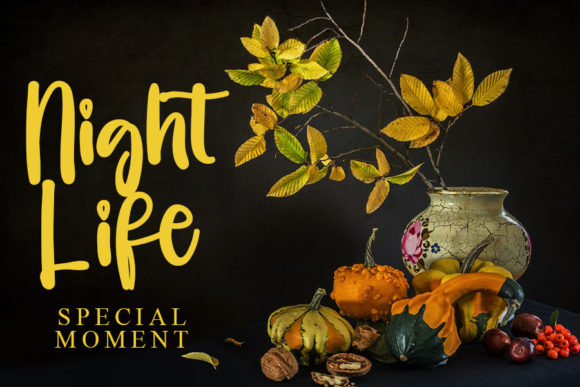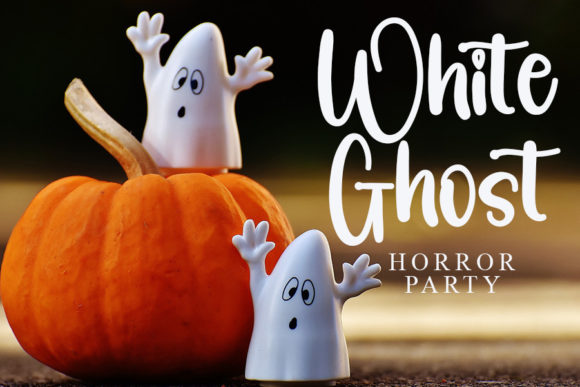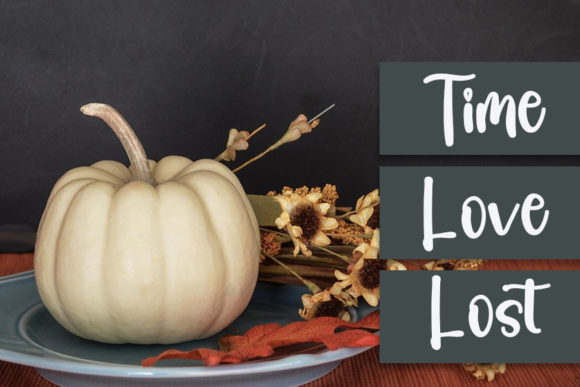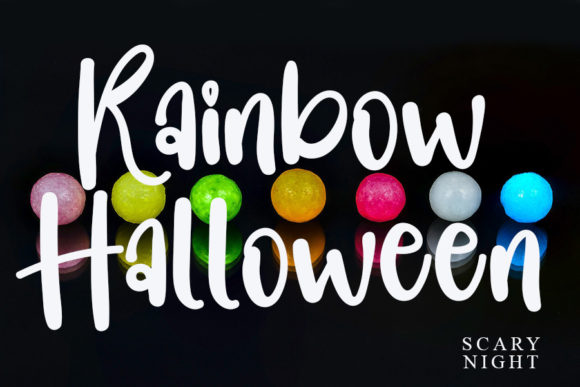
Introducing the Spooktacular Halloween Pumpkin Font
Are you ready to add a touch of horror and whimsy to your designs? Look no further than the Halloween Pumpkin Font, a charming and playful handwritten font that’s perfect for the spookiest time of the year. This delightful font features characters that seem to dance along the baseline, adding a sense of movement and energy to any project.
What Makes Halloween Pumpkin Font So Special?
The Halloween Pumpkin Font is a horror handwritten font that’s designed to evoke the spirit of Halloween. Its unique and quirky characters are sure to make your designs stand out from the crowd. Whether you’re a designer, crafter, or simply a fan of the spooky season, this font is sure to delight.
One of the key features of the Halloween Pumpkin Font is its charming and playful characters. Each letter is carefully crafted to resemble handwriting, with a sense of imperfection and personality that’s hard to find in digital fonts. The characters seem to dance along the baseline, adding a sense of movement and energy to any project.
Uses for the Halloween Pumpkin Font
The Halloween Pumpkin Font is incredibly versatile, and can be used for a wide range of projects. Here are just a few ideas to get you started:
- Halloween Invitations and Party Decorations: Use the Halloween Pumpkin Font to create spooky and fun invitations, decorations, and other party materials.
- Graphic Design Projects: Add a touch of horror and whimsy to your graphic design projects, such as logos, brochures, and posters.
- Crafting and Scrapbooking: Use the Halloween Pumpkin Font to add a personal touch to your crafting and scrapbooking projects, such as cards, gift tags, and journal pages.
- Social Media Graphics: Use the Halloween Pumpkin Font to create spooky and fun social media graphics, such as Halloween-themed Facebook posts and Instagram stories.
Tips for Using the Halloween Pumpkin Font
Here are a few tips for getting the most out of the Halloween Pumpkin Font:
- Use it sparingly: While the Halloween Pumpkin Font is fun and playful, it can be overwhelming if used too much. Use it sparingly to add a touch of horror and whimsy to your designs.
- Experiment with colors: The Halloween Pumpkin Font looks great in a variety of colors, from traditional Halloween colors like orange and black to more bold and bright colors.
- Pair it with other fonts: The Halloween Pumpkin Font pairs well with other fonts, such as serif and sans-serif fonts. Experiment with different font combinations to find the perfect look for your project.
The Halloween Pumpkin Font is a unique and versatile font that’s perfect for the spookiest time of the year. Its charming and playful characters are sure to make your designs stand out, and its horror and whimsy theme is sure to delight. Whether you’re a designer, crafter, or simply a fan of the spooky season, this font is sure to be a hit. So why wait? Download the Halloween Pumpkin Font today and start creating your own spooktacular designs!
Key Features of Halloween Pumpkin Font
- Horror handwritten font: The Halloween Pumpkin Font is a horror handwritten font that’s designed to evoke the spirit of Halloween.
- Charming and playful characters: Each character in the Halloween Pumpkin Font is carefully crafted to resemble handwriting, with a sense of imperfection and personality.
- Unique and quirky design: The Halloween Pumpkin Font features a unique and quirky design that’s sure to make your designs stand out.
So, add this font to your most creative ideas and notice how it makes them stand out! With its unique and quirky characters, the Halloween Pumpkin Font is sure to be a hit with designers, crafters, and fans of the spooky season alike.